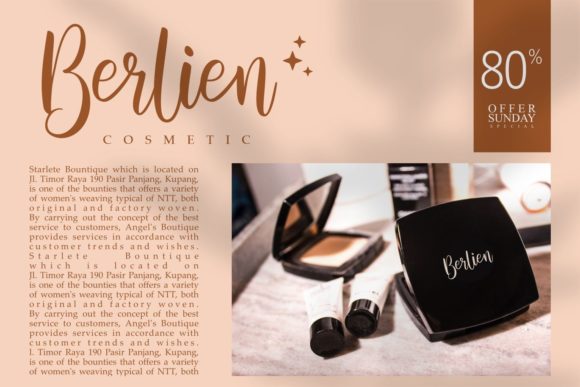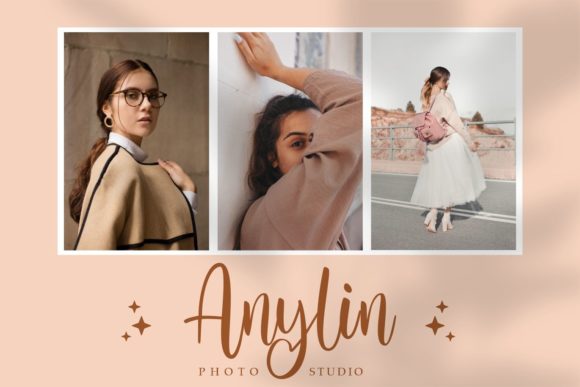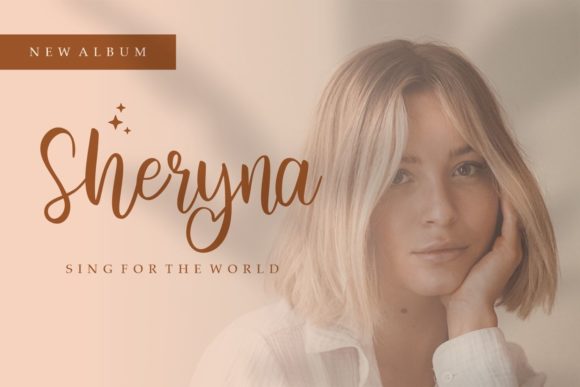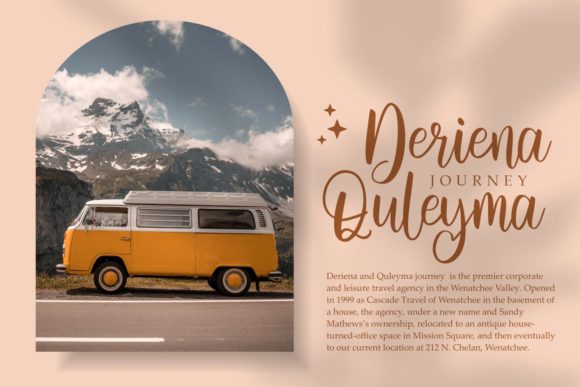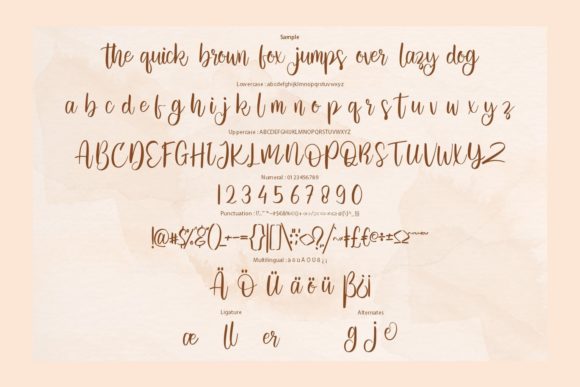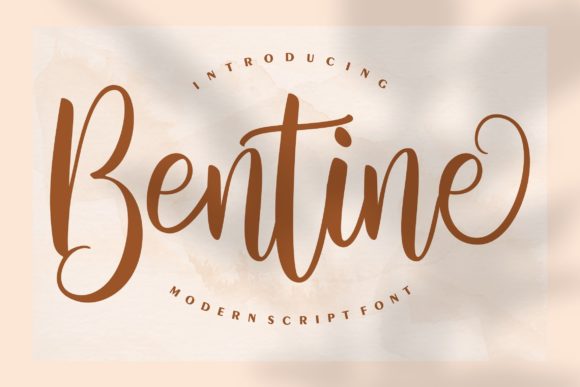
Bentine Script Font: Elevate Your Design with Elegance and Sophistication
Are you looking for a font that exudes romance, sweetness, and luxury? Look no further than the Bentine Script Font. This beautiful calligraphy typeface is designed to make your design projects stand out with its unique and elegant style. In this article, we’ll dive into the features and benefits of Bentine Script, and explore how it can add a touch of sophistication to your creative endeavors.
The Charm of Bentine Script
Bentine Script is a romantic and sweet calligraphy typeface that is sure to capture the hearts of designers and crafters alike. Its characters are carefully crafted to dance along the baseline, creating a sense of movement and fluidity that is both visually appealing and engaging. This font is perfect for adding a touch of luxury to any design project, whether it’s a wedding invitation, a branding campaign, or a packaging design.
Key Features of Bentine Script
- Romantic and Sweet: Bentine Script is a calligraphy typeface that is designed to evoke feelings of romance and sweetness. Its elegant strokes and flowing lines make it perfect for designs that require a touch of sophistication.
- Luxury Spark: This font is designed to add a luxury spark to any design project. Its unique and elegant style makes it perfect for high-end branding, packaging, and advertising campaigns.
- Dancing Characters: The characters in Bentine Script are carefully crafted to dance along the baseline, creating a sense of movement and fluidity that is both visually appealing and engaging.
- Versatile: Bentine Script is a versatile font that can be used for a wide range of design projects, from wedding invitations to branding campaigns, and from packaging design to advertising.
Benefits of Using Bentine Script
Using Bentine Script in your design projects can bring a range of benefits, including:
- Unique and Elegant Style: Bentine Script has a unique and elegant style that will set your design projects apart from the rest.
- Emotional Connection: The romantic and sweet nature of Bentine Script can help create an emotional connection with your audience, making your design projects more engaging and memorable.
- Professional and Sophisticated: Bentine Script is a professional and sophisticated font that can add a touch of luxury to any design project, making it perfect for high-end branding and advertising campaigns.
How to Use Bentine Script in Your Design Projects
In conclusion, Bentine Script is a beautiful and elegant calligraphy typeface that can add a touch of luxury and sophistication to any design project. Its unique and romantic style makes it perfect for designers and crafters who want to create something truly special. With its versatility, emotional connection, and professional style, Bentine Script is a font that is sure to elevate your design projects to the next level.